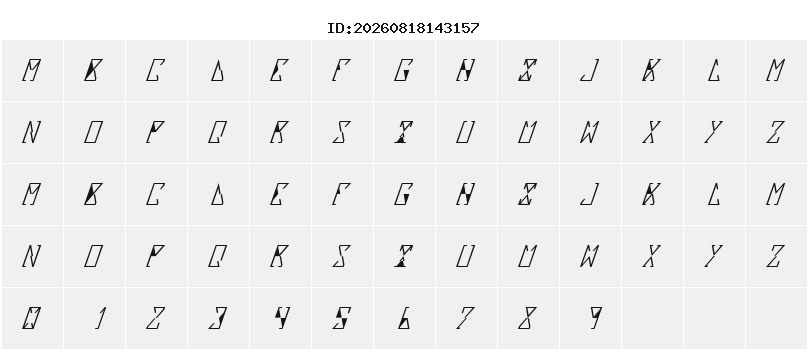
Sloux Preview
• Font Name: Sloux
• Full Font Name: Sloux Italic
• Designer: Kevin Risinger
• Manufacturer: Kevin Risinger
About Sloux.ttf
Sloux.ttf is a modern, elegant sans-serif font designed for ultimate readability and visual harmony. Perfect for branding, headlines, web design, and print materials.